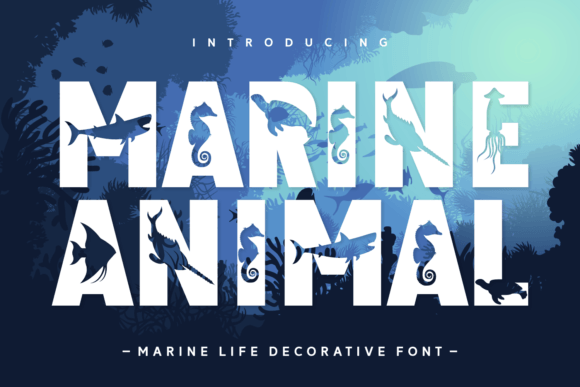
Dive into the enchanting realm of Marine Animal Font, a captivating decorative font family that ignites imagination and brings joy to any project. Inspired by the vibrant underwater world, this font swims with personality and charm, leaving a trail of smiles in its wake.
Prepare to be mesmerized as you explore the depths of this font's unique character set, featuring an array of whimsical sea creatures and playful ocean elements. From graceful dolphins leaping through the waves to cheerful crabs scuttling along the sandy shores, each glyph exudes a sense of wonder and delight.
Unleash your creativity and let Marine Animal Font guide you on an artistic voyage. Its playful curves and charming details add a touch of magic to invitations, cards, and quotes, making them cherished keepsakes that capture the essence of joy and lightheartedness.
Dive into the world of fabric prints and crafts with Marine Animal Font as your trusty companion. Its unique charm transforms ordinary projects into extraordinary expressions of artistry. Create eye-catching tote bags adorned with vibrant sea turtles, or design quirky coasters featuring mischievous jellyfish. The possibilities are boundless, and the results are sure to captivate and inspire.
For those who revel in the realm of digital typography, Marine Animal Font awaits you with open fins. Its PUA encoding grants you effortless access to all the glyphs, allowing you to weave enchanting tales and create captivating headlines that dance across the screen.
Embark on a journey of creativity with Marine Animal Font as your guiding light. Let its playful spirit ignite your imagination and transform your projects into captivating masterpieces. Dive in and discover the endless possibilities that await you.